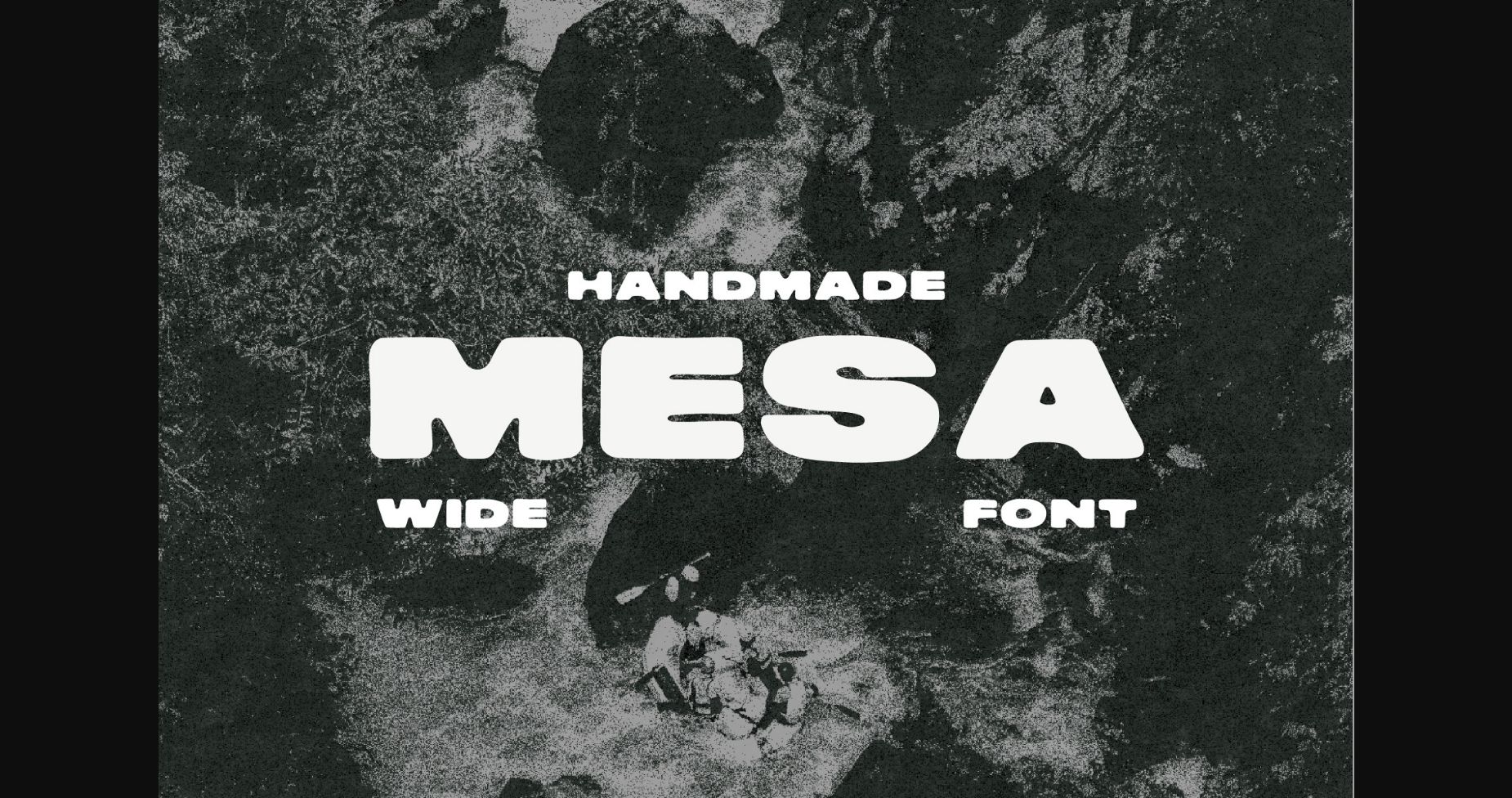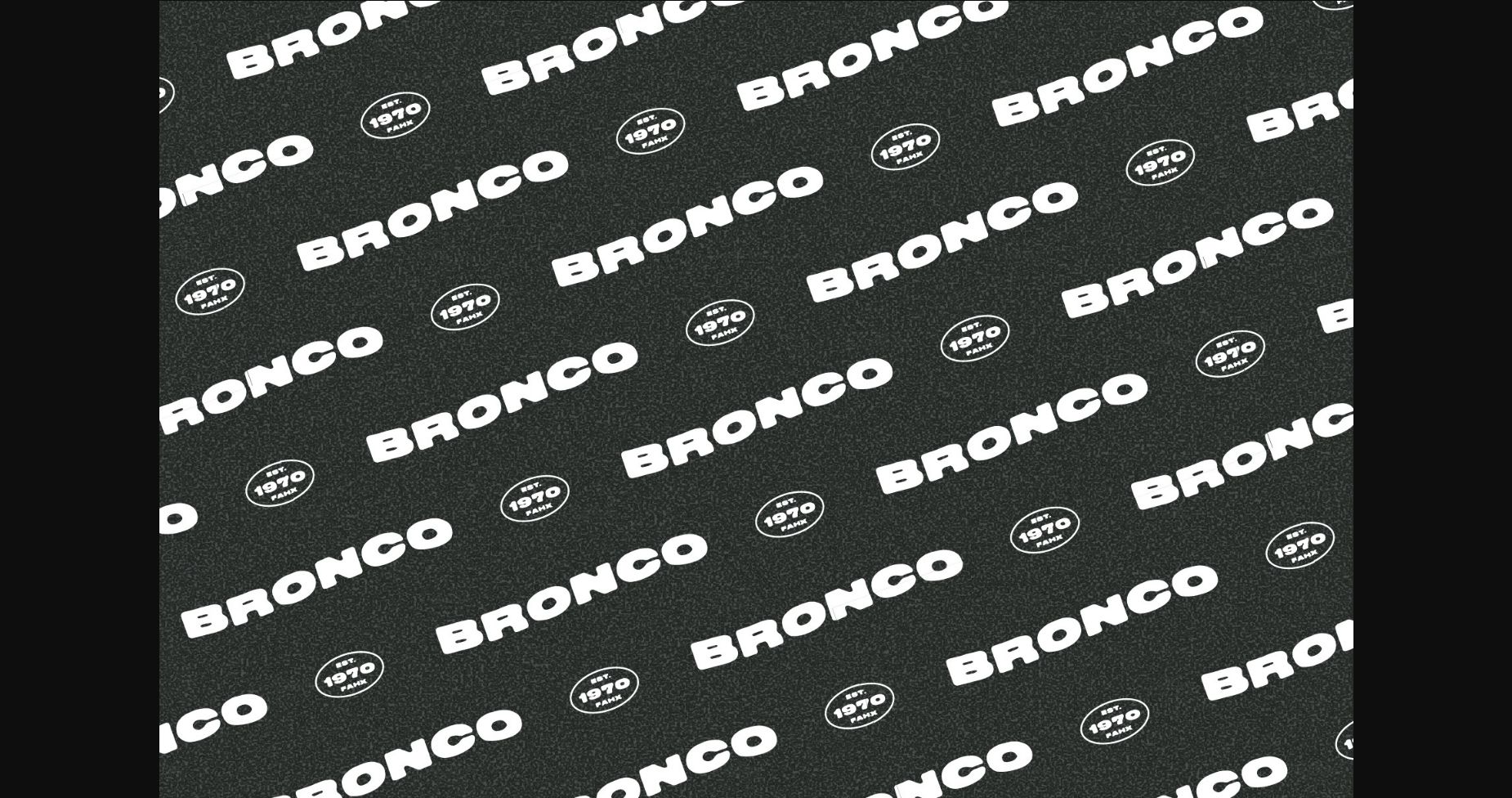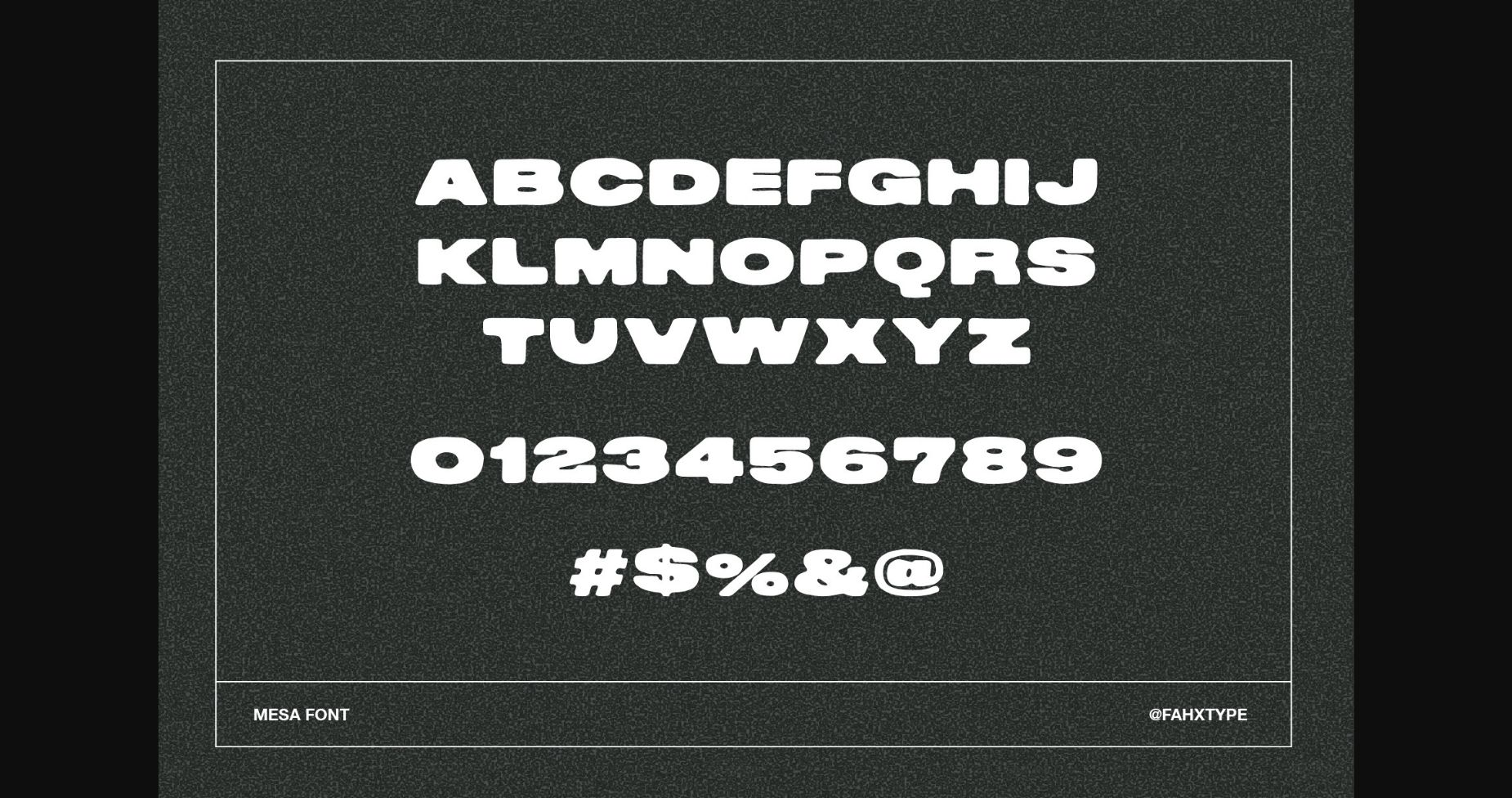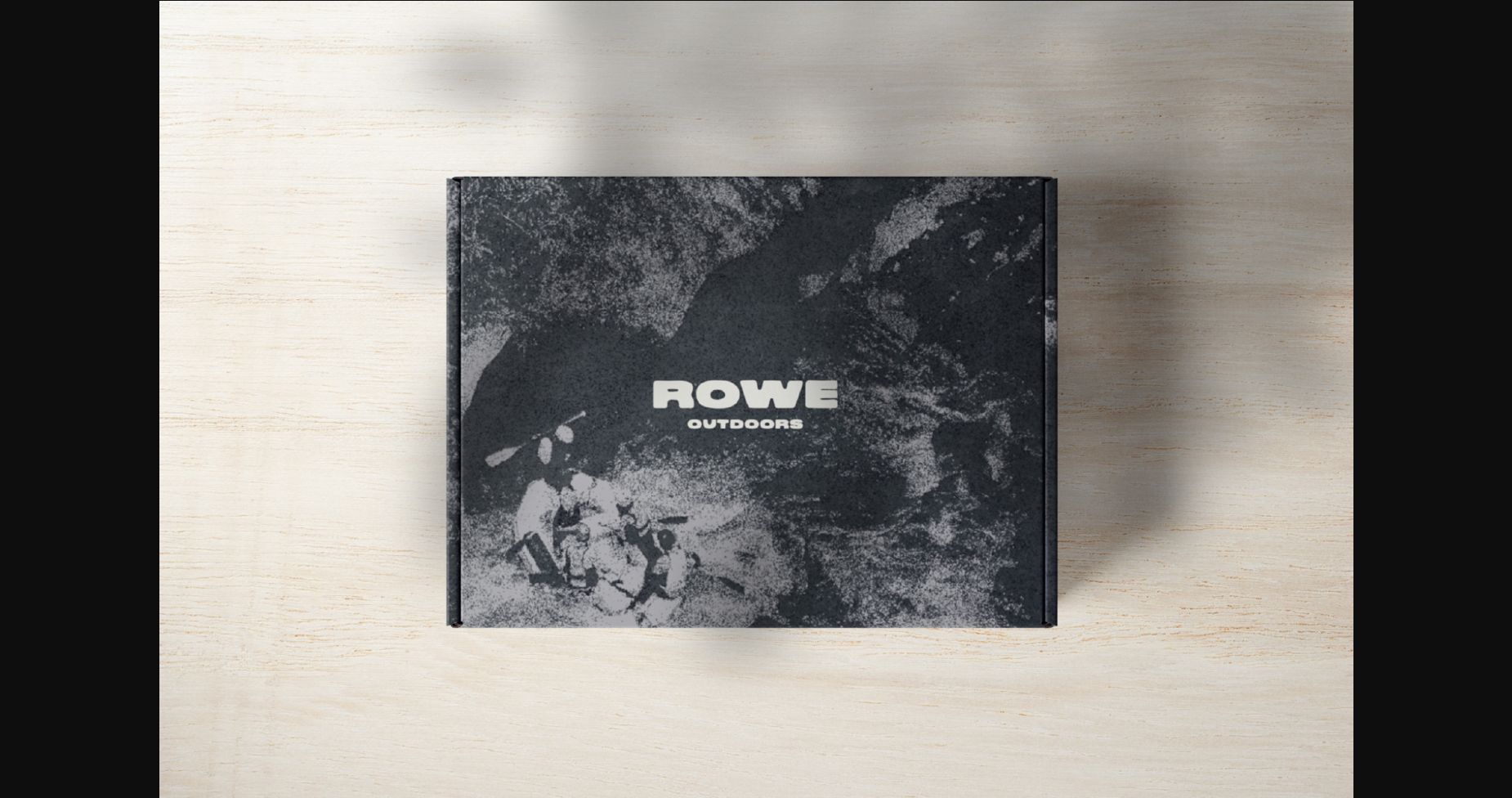
About Mesa Font
Mesa is a modern, bold, and wide font, designed to command attention. With its clean lines and bold, wide-set letters, each character exudes power and confidence. This font is perfect for headlines, logos, and other design elements that require a strong and assertive look, making a lasting impact on your audience.